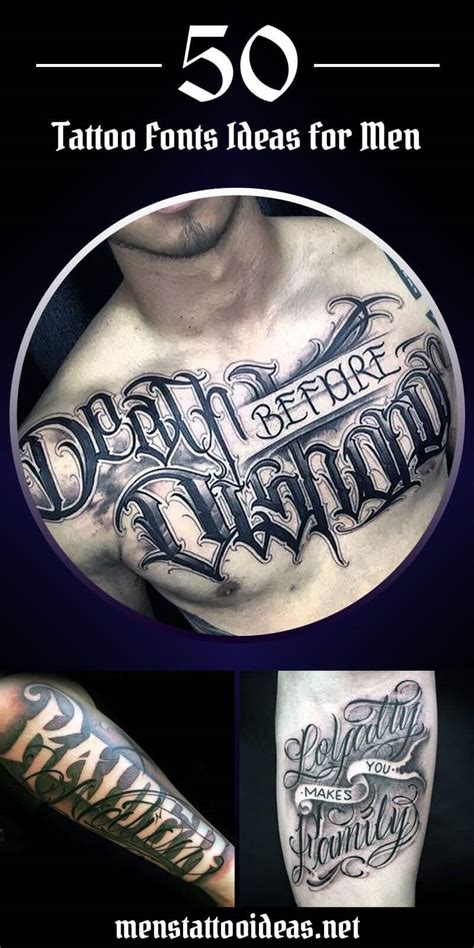
The piping/underlines are also beautifully etched and create a useful border for any future forearm art. Star typeface tattoo font is classic with 8 creative styles great for modern designs, but also retro with regular and grunge options to choose from. You can go for a bit of drama in the shape of the letters by playing up geometrical symbols like triangles and diamonds.
Tattoo font ideas for men. The most popular fonts for tattoos are script fonts, which usually look personal and unique, such as calligraphy and handwriting. For this reason, crown tattoos can be very powerful symbols. Avaboca is a sporty, manly font with a black condensed, sans serif design.
Fortunately, we have many unique tattoo font styles for men and women, such as calligraphy, cursive, and traditional styles. 54 professional greek tattoos in letters fonts to download. The piping/underlines are also beautifully etched and create a useful border for any future forearm art. 23 effective tattoo fonts for men to use. We have 48 free cursive, tattoo fonts to.
The most popular fonts for tattoos are script fonts, which usually look personal and unique, such as calligraphy and handwriting. Below are ten of the best tattoo fonts ideas for men and what they represent. If you want to create professional printout, you should consider a commercial font. This is without a doubt one of the most popular tattoo fonts.
Other popular fonts used in tattoos include: For this reason, crown tattoos can be very powerful symbols. It is a massive back tattoo and is written in bold gothic style. 43 tattoo font for men ideas | tattoo lettering, tattoo lettering fonts, tattoo lettering styles. With pain comes strength tattoo.
This is one of the most brilliant tattoo ideas for men. Rose tattoos are timeless and cool. When it comes to tattoos for men, the font tends to be bold and standout, packing a punch in the curves and lines. The crown tattoo for men is meant to signify that you are a king. Words of wisdom, quotes, custom text,.
Fonts for tattoos, drawings and decorations. Fortunately, we have many unique tattoo font styles for men and women, such as calligraphy, cursive, and traditional styles. Very american and patriotic, this tattoo reads ‘south central’ and is definitely top on the list of tattoo fonts ideas for men. 54 professional greek tattoos in letters fonts to download. A simple idea for.
Look up tattoo fonts for men in magazines and online design journals, to get inspired before your ink session. Script style tattoo fonts feature much wider and longer curves while display tattoo fonts have more stylistic serifs. Cool tattoo fonts for men kingsbridge bold. Related images with tattoo fonts for men. The crown tattoo for men is meant to signify.
Crowns are often part of matching couple tattoos, where a boyfriend and girlfriend or husband and wife get a king and queen tattoo design to celebrate their relationship. Roses come in an array of colors and styles, and can be included into different drawings to represent different meanings. You can notice the font style name and author below the. For.
Roses come in an array of colors and styles, and can be included into different drawings to represent different meanings. The most popular fonts for tattoos are script fonts, which usually look personal and unique, such as calligraphy and handwriting. 54 professional greek tattoos in letters fonts to download. This wallpaper is rated 31. It is a massive back tattoo.